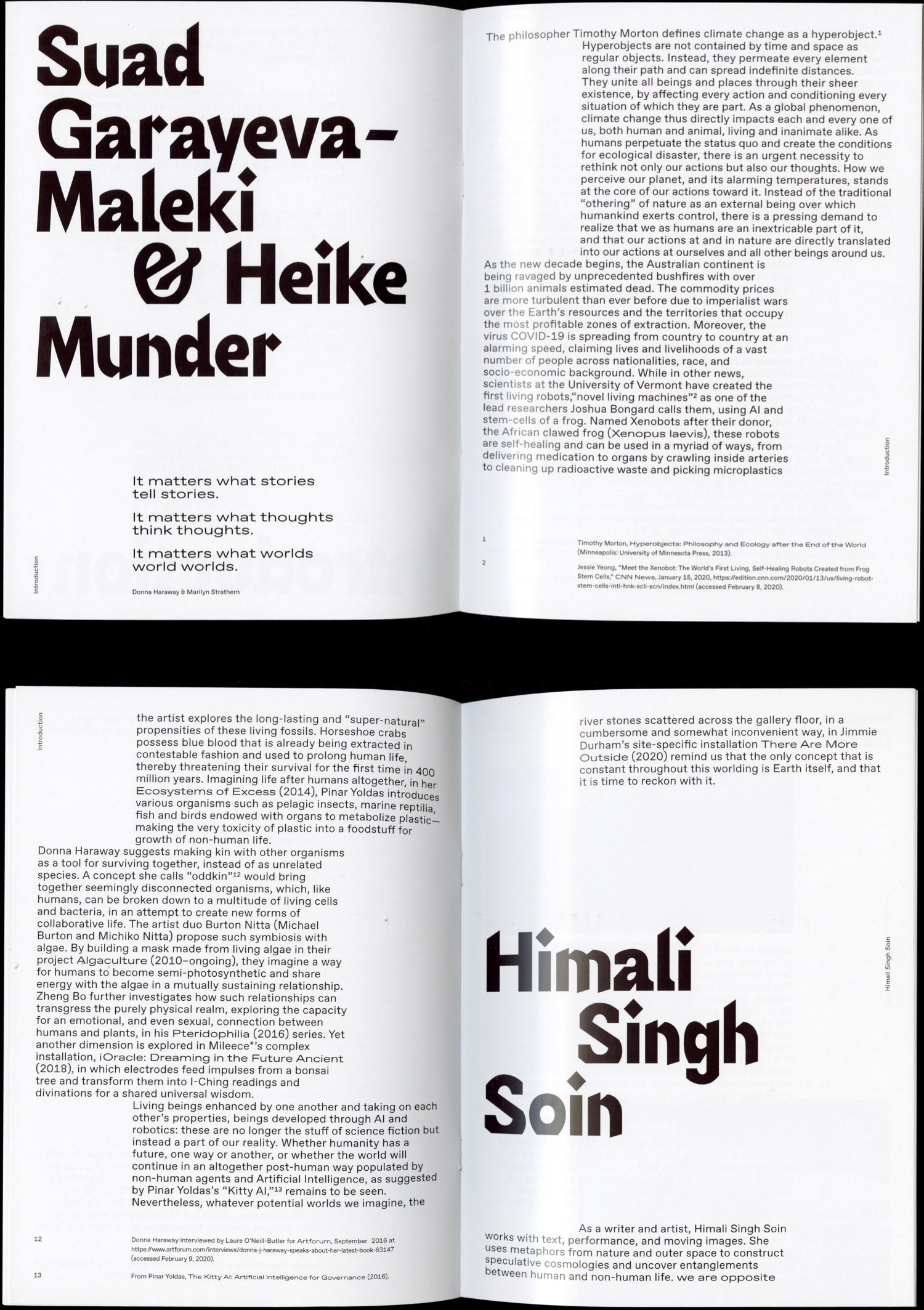
Growing up in the 1980s, my idea of the future was shaped by the analog, apocalyptic worlds of films like Star Wars, Alien, and Back to the Future. Although I consciously tried to move away from that imagery, I still wanted to preserve its raw essence in the typeface. The result is a deliberately imperfect and unsettling font: bold, broken, and uneven. A central challenge was finding the right balance between individual letterforms and the overall texture of the typeface. The process involved digitizing, cutting, scanning, and reintegrating the letters, while carefully maintaining the bulky, raw qualities they had in my sketchbook. Mentored by Marie Lusa.
Typeface: The Bizarre Beta
Designed by: Nir Zabari Yenni
The Bizarre Beta: Display Typeface
A deliberately imperfect and disturbing display typeface. Bold, broken, and uneven letters that maintain bulky, raw letterforms from the sketchbook.